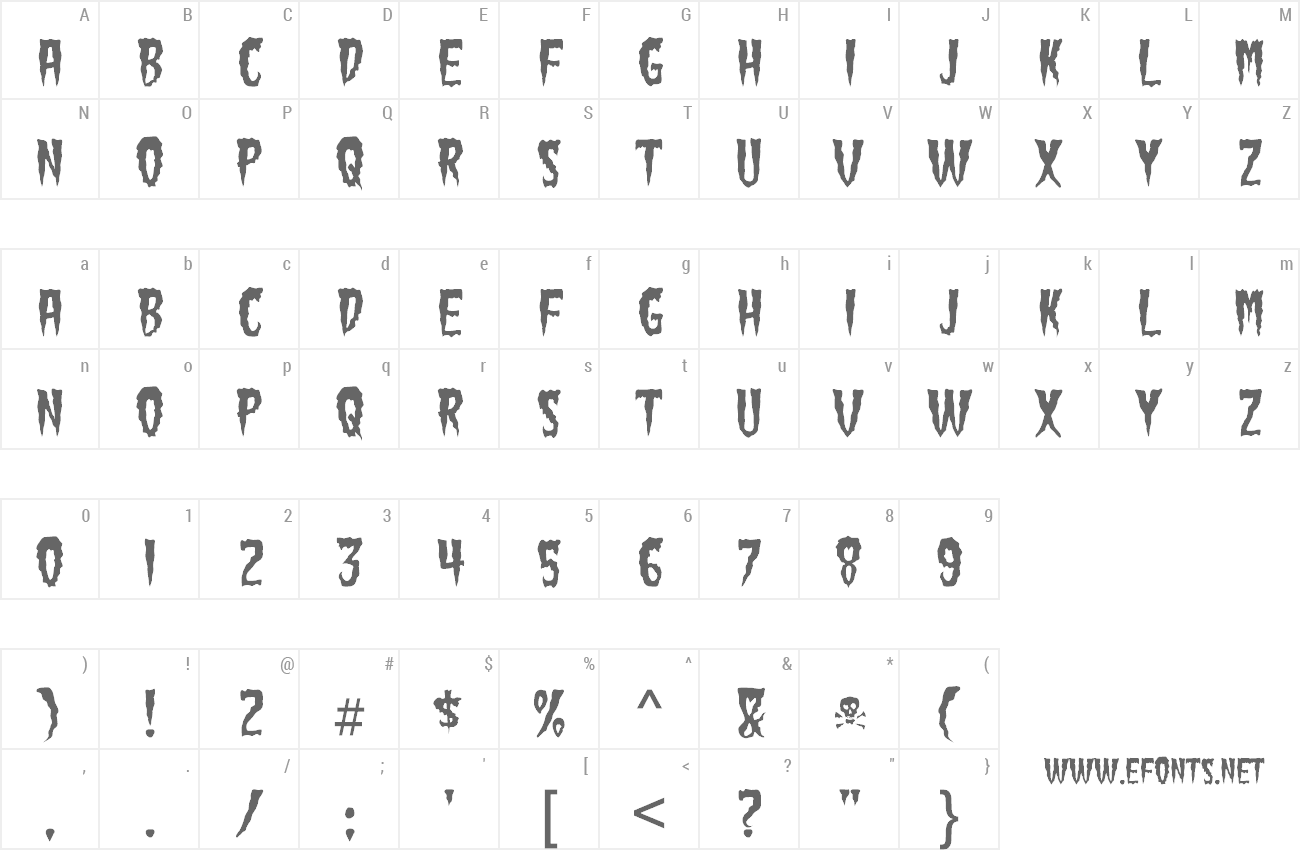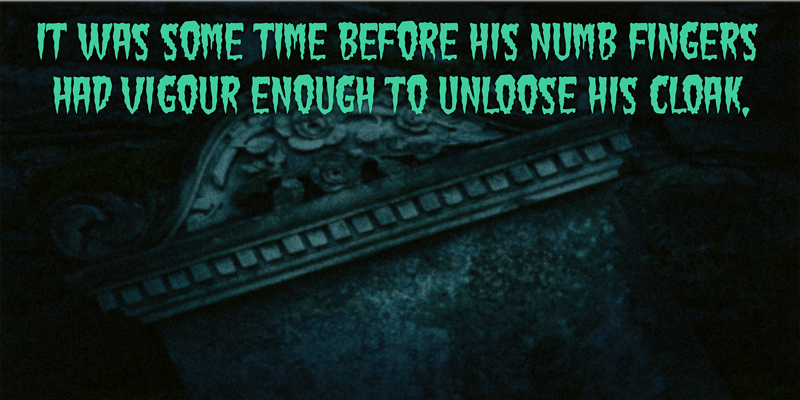
Green Fuz is a gruesome font inspired by American horror comics of the 1950’s. This font includes a license that allows free commercial use: sometimes referred to as a desktop license. This allows you to install the font on a computer and use it to create posters, web graphics, game graphics, t-shirts, videos, signs, logos and more. Read the license agreement for details. If you'd like to embed this font in an app, ebook, on the web or anything that's not covered by the desktop license agreement, visit the link below. You'll find distributors who offer different types of licenses or you can contact me for help. http://typodermicfonts.com/green-fuz/ |